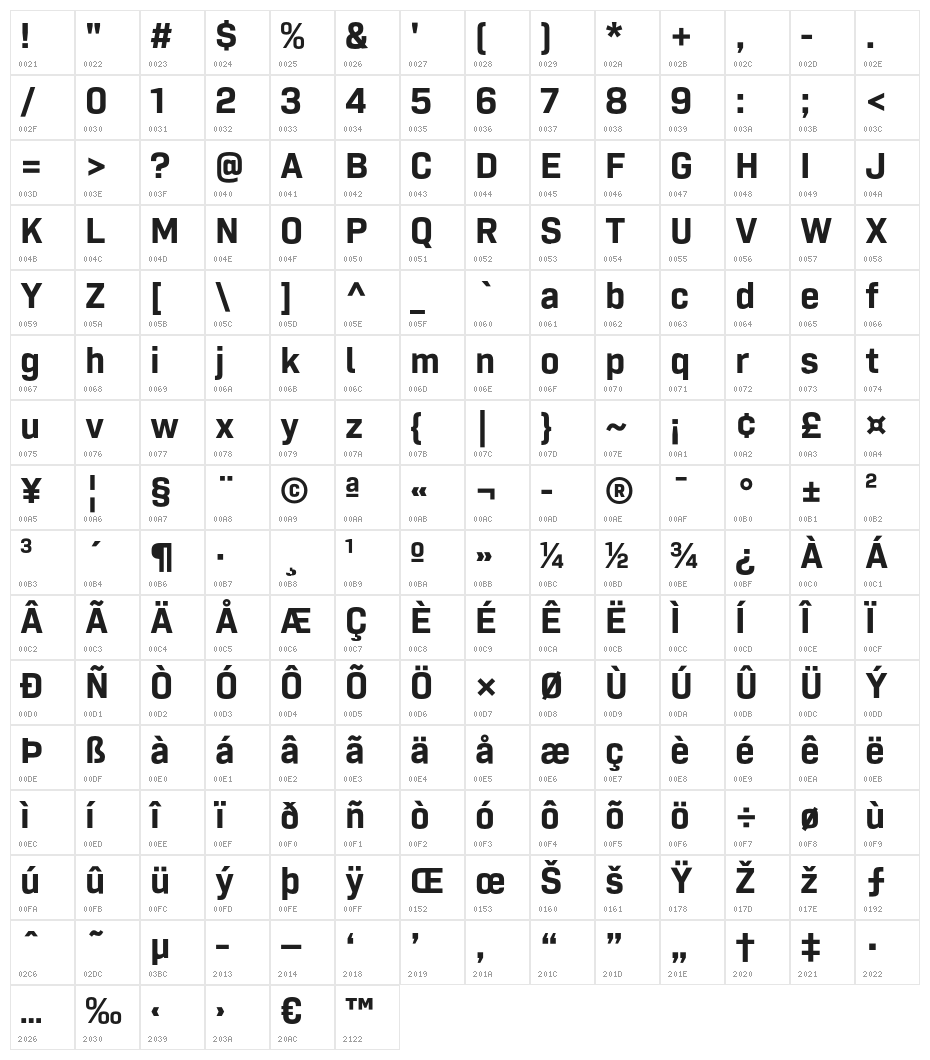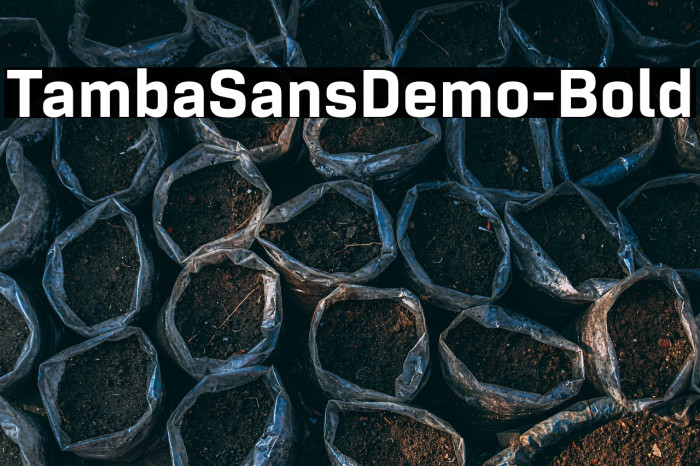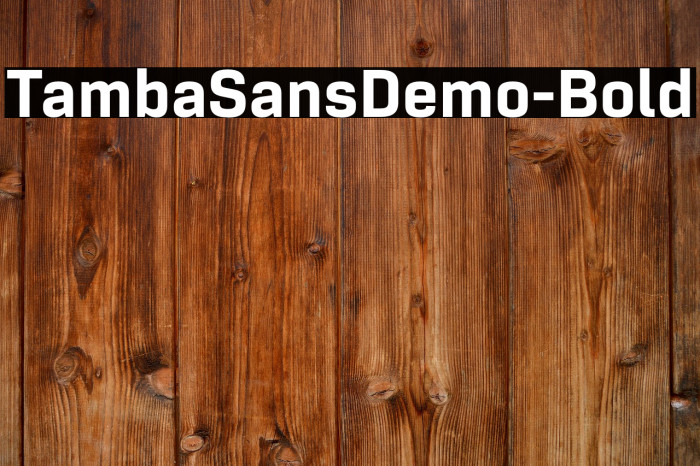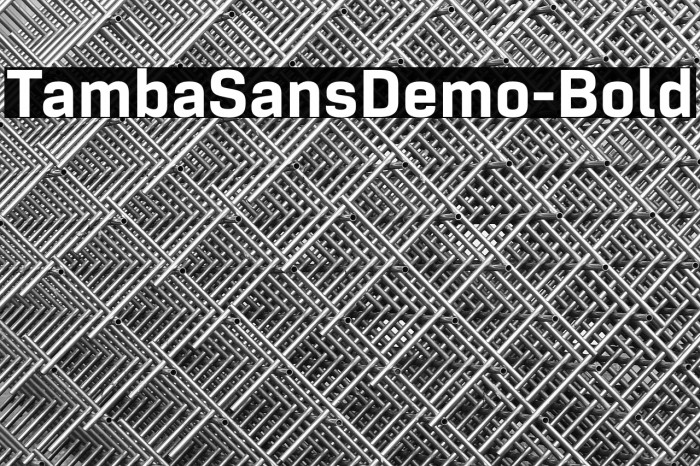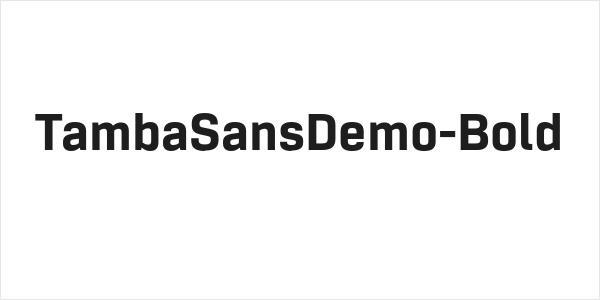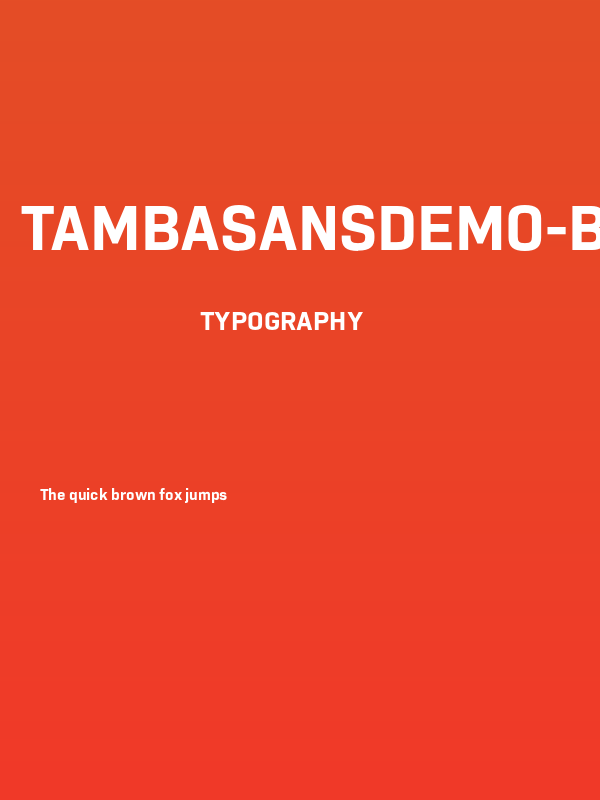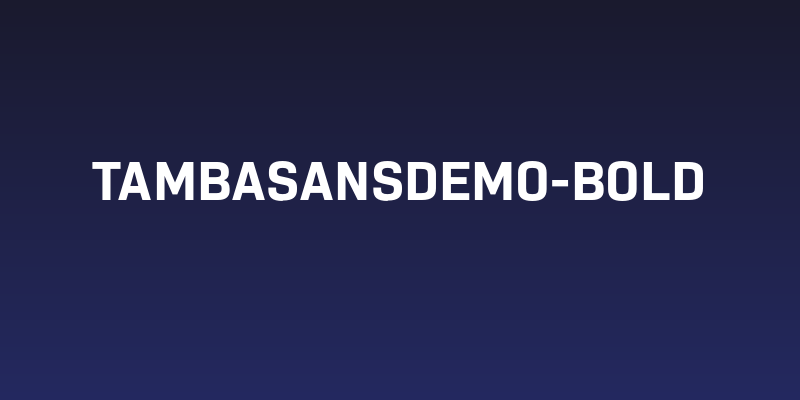
TambaSansDemo-Bold Font
TambaSansDemo-Bold Description
This font features a bold, modern sans-serif design with clean lines and a strong presence. The characters are evenly spaced, providing a balanced and harmonious appearance. The uppercase letters are robust and commanding, while the lowercase letters maintain a consistent weight, offering a cohesive look across different text sizes. The numerals are clear and legible, making them suitable for a variety of applications. Special characters are well-defined, adding versatility to the font's use. The overall style is contemporary, making it ideal for projects that require a modern and professional aesthetic.
| Proposed Projects | Ideal for branding, advertising, headlines, and digital content that requires a modern and professional look. |